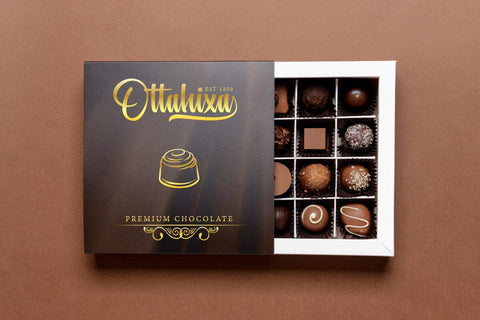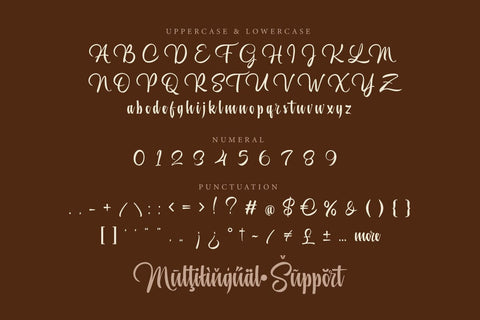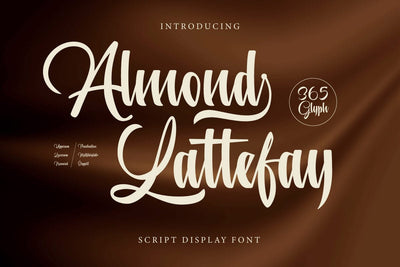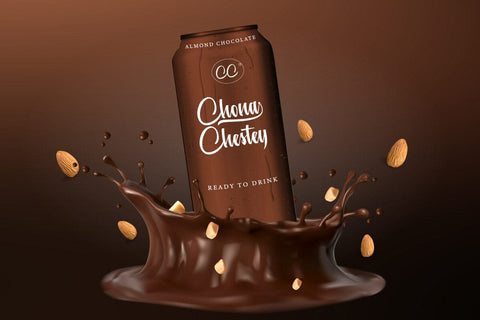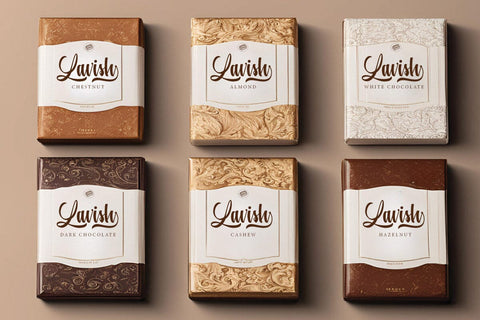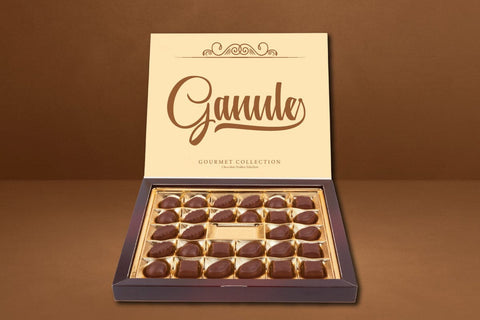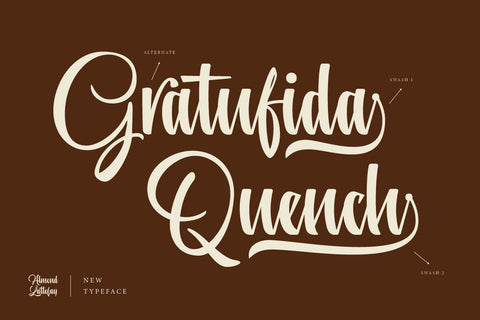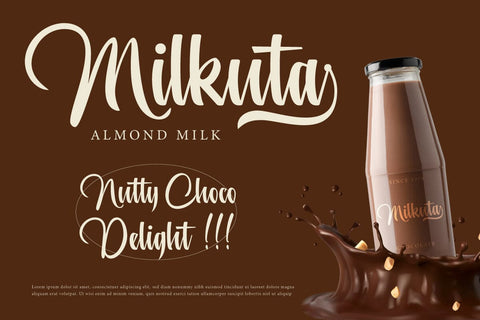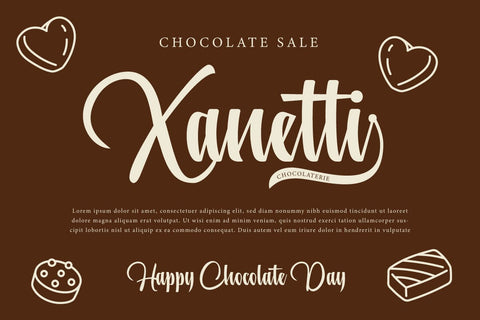
Almond Lattefay - Script Font
Indulge in the sweet elegance of Almond Lattefay, a Script Choco Font designed to bring a touch of decadence to your creative projects. Perfect for bakery branding, chocolate packaging, and dessert menus, Almond Lattefay features smooth, flowing letterforms that mimic the rich and creamy texture of melted chocolate. Each character is crafted with exquisite detail, capturing the essence of indulgence and luxury.
The delightful curves and whimsical style of Almond Lattefay add a sense of warmth and charm to your designs, making them irresistible to the eye. This font is ideal for creating captivating logos, enticing product labels, and mouth-watering social media graphics that leave a lasting impression. Elevate your branding with the delectable beauty of Almond Lattefay, the perfect choice for any project that craves a touch of sweetness.